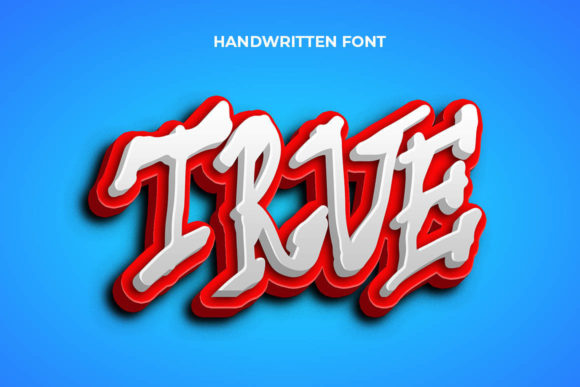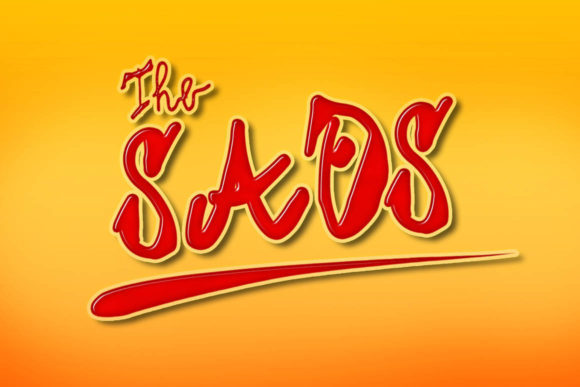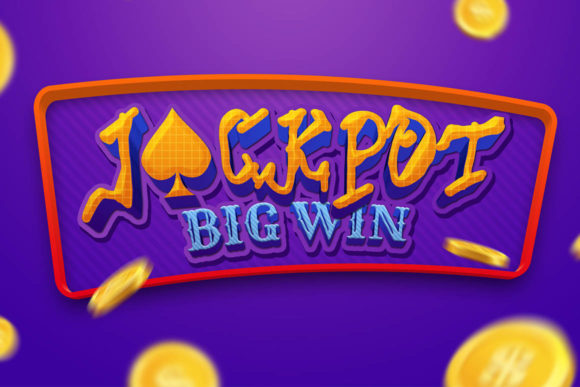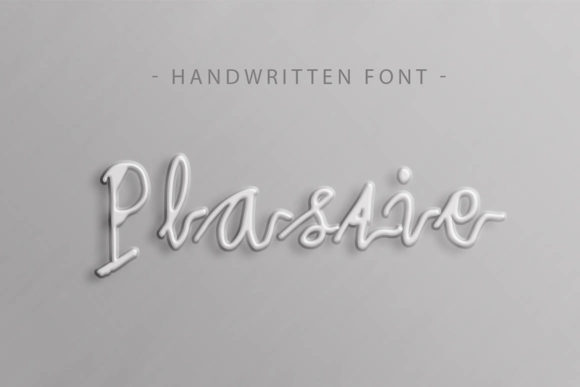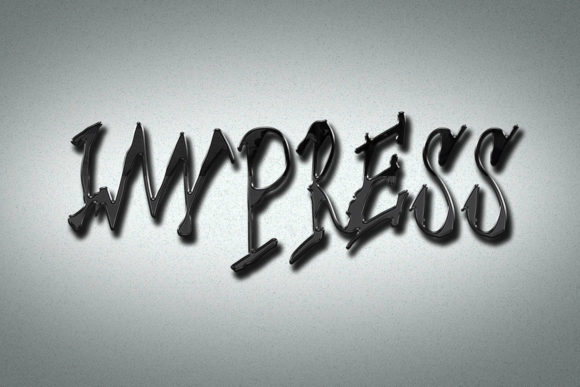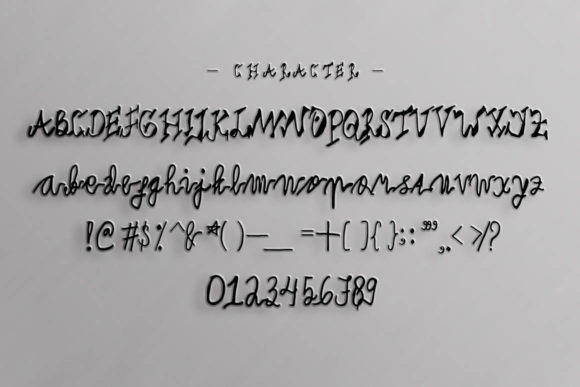
Introduction to Los Dol Font
Have you ever found yourself staring at a blank page, searching for the perfect font to elevate your creative project? You know, that moment when everything seems to be missing that special something, and you just can’t quite put your finger on it? Well, we’re here to tell you that moment is over, thanks to the Los Dol Font.
This exquisite handwritten font has captured the hearts of designers and artists worldwide with its unique blend of classic calligraphy and modern flair. With its high-quality design and transparent background, it’s the perfect addition to any project. Whether you’re working on a personal blog, a business logo, or a creative campaign, the Los Dol Font is sure to bring your design to the next level.
As a valuable design resource, the Los Dol Font offers a level of sophistication and elegance that’s hard to find in other free downloads. Its versatility and timeless appeal make it a must-have for any designer looking to take their projects to the highest levels.
Key Features of Los Dol Font
- High-quality font with a unique, creative design suitable for various projects.
- Designed for use in various creative projects, including logos, branding, and digital art.
Honest Review: Los Dol Font
As a designer, I’m always on the lookout for high-quality design resources to enhance my creative projects. Recently, I stumbled upon Los Dol Font, a free download that caught my attention.
- ✨ The font has a unique, modern aesthetic that’s perfect for adding a touch of sophistication to my designs.
- ⚠️ The font may not be suitable for all design projects, as it’s quite bold and eye-catching.
Overall, I’m impressed with Los Dol Font’s high-quality design and transparent background. While it has some limitations, it’s a great resource for designers looking to add a modern touch to their creative projects. I’d definitely recommend giving it a try!
Common Use Cases for Los Dol Font
Los Dol Font is suitable for a variety of creative projects, including logos, branding materials, and marketing materials. Its transparent background and high-quality design make it a versatile and practical choice for designers and artists.